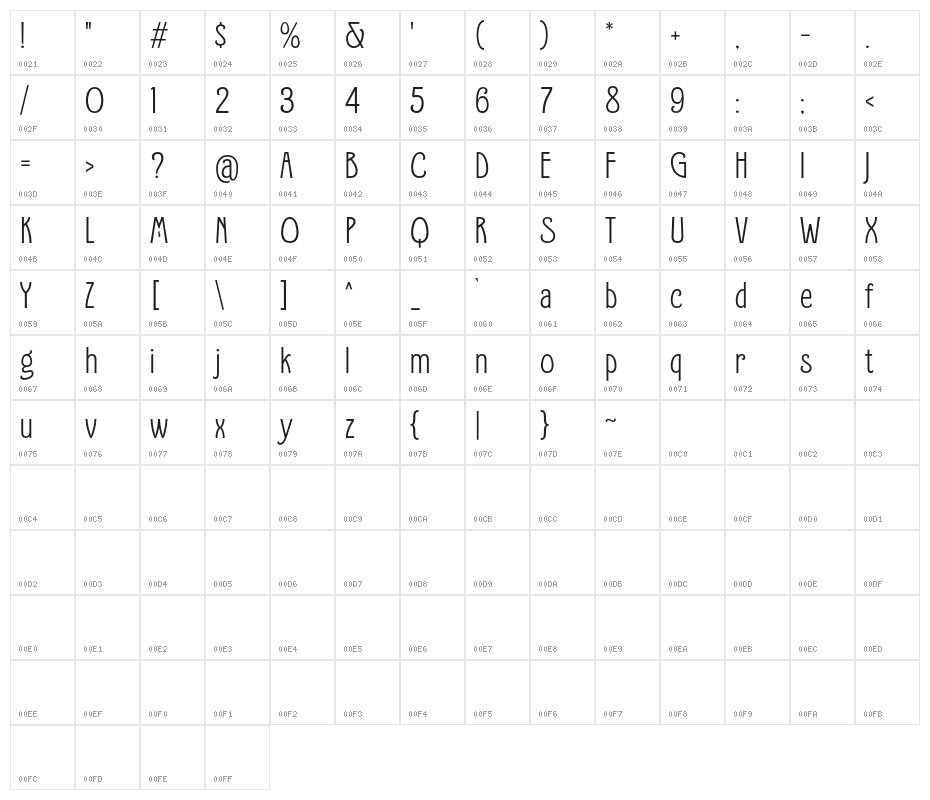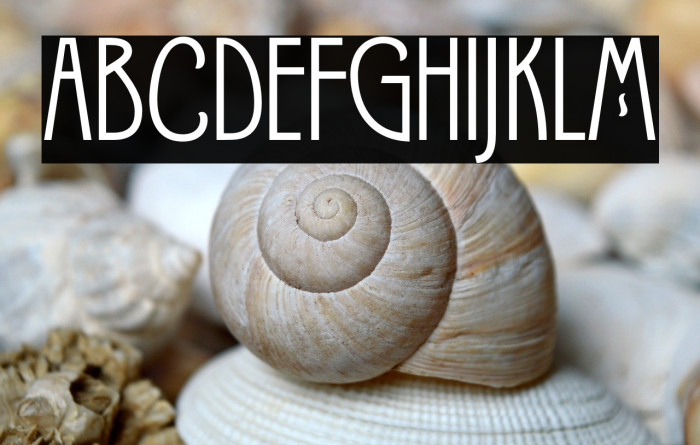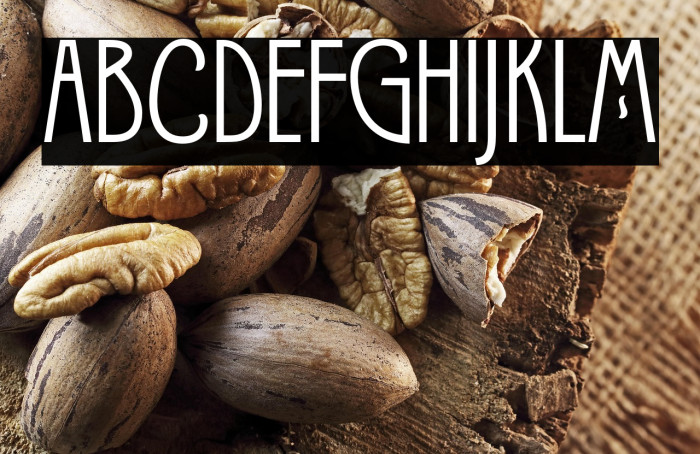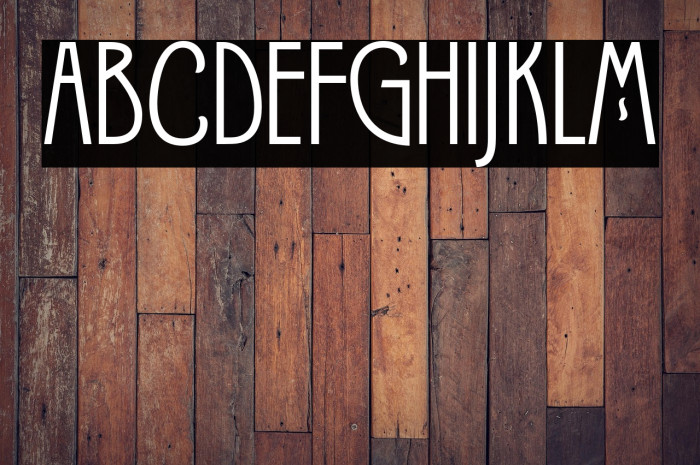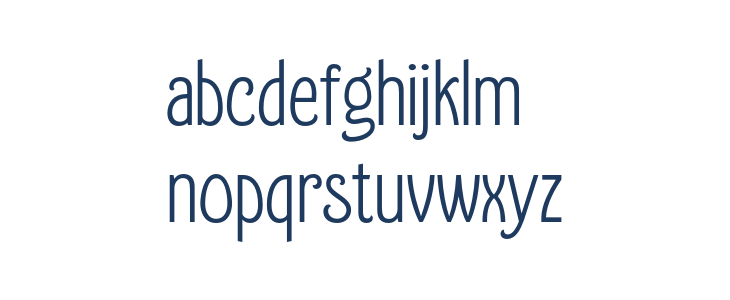
Candleton DEMO Font
Candleton DEMO Description
This font features a unique blend of modern and vintage elements, characterized by its tall, narrow letterforms and slightly curved edges. The uppercase letters are particularly elongated, giving a sense of elegance and sophistication. The lowercase letters maintain a consistent style, with smooth curves and a clean finish. Numbers are clear and easily readable, while special characters are distinct and well-designed. The overall appearance is both stylish and functional, making it suitable for a variety of design projects.
| Proposed Projects | Ideal for branding, editorial design, posters, and invitations where a touch of elegance is desired. |